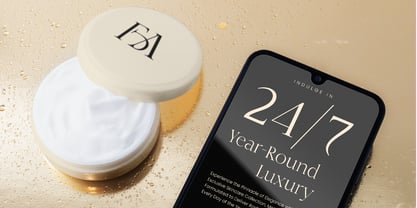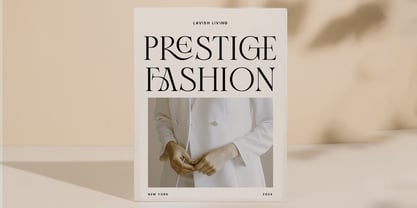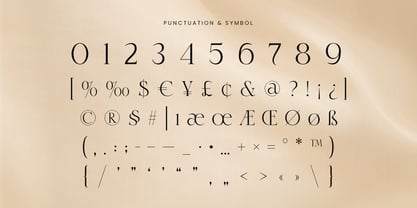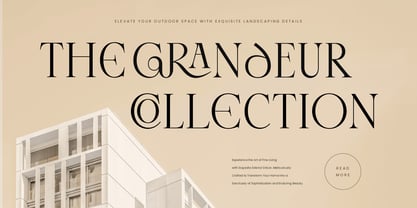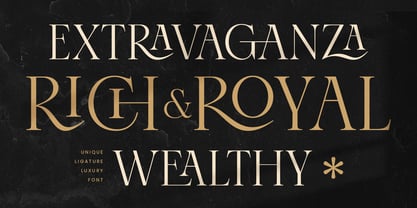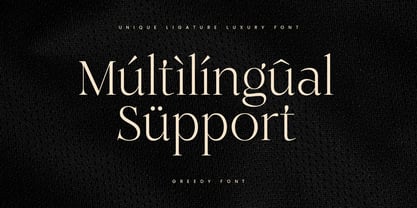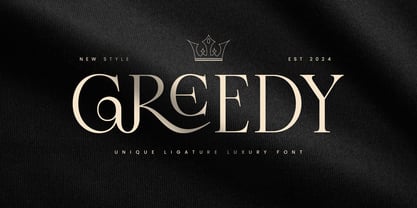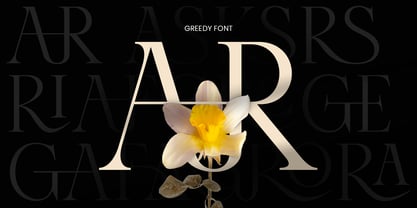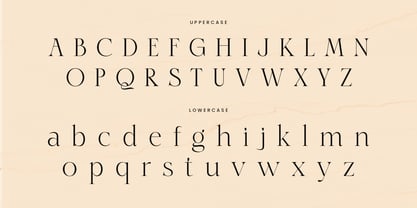
Greedy SS
von Sensatype Studio
Die Schriftfamilie Greedy SS wurde von Zamroni Hamzah entworfen und von Sensatype Studio veröffentlicht. Greedy SS enthält 2 Stile und Familienpaketoptionen.
Greedy - Unique Ligature Luxury Font
Greedy is a sophisticated font created for those who seek luxury and elegance in their designs. With unique ligatures that add a refined, premium touch, Greedy is the perfect choice for brands, logos, and high-end projects that prioritize elegance and quality. Each character has been meticulously crafted to convey a sense of grandeur and exclusivity.
Drawing inspiration from classic luxury styles, Greedy seamlessly merges timeless serif elements with a modern flair. Its design is versatile yet distinct, making it ideal for everything from luxury branding to editorial use. This font elevates any project, providing an upscale look that captivates audiences and leaves a memorable impression.
Embrace the art of sophistication with Greedy, the go-to font for creating a luxurious, unforgettable experience. Suitable for both digital and print applications, it offers a versatile and polished aesthetic that’s bound to set your work apart.
Greedy Unique Ligature Luxury Font Features:
• Unique Alternate & Ligature Characters Ready
• Punctuation, Number, and Symbol
• Uppercase and Lowercase
• Opentype Features
Multilingual Characters available for:
Afrikaans, Albanian, Asu, Basque, Bemba, Bena, Breton, Chiga, Cornish, Dutch, English, Estonian, Filipino, Finnish, Friulian, Galician, German, Gusii, Indonesian, Irish, Italian, Kabuverdianu, Kalenjin, Kinyarwanda, Luo, Luxembourgish, Luyia, Machame, Makhuwa-Meetto, Makonde, Malagasy, Manx, Morisyen, North Ndebele, Nyankole, Oromo, Portuguese, Quechua, Romansh, Rombo, Rundi, Rwa, Samburu, Sango, Sangu, Scottish Gaelic, Sena, Shambala, Shona, Soga, Somali, Spanish, Swahili, Swedish, Swiss.